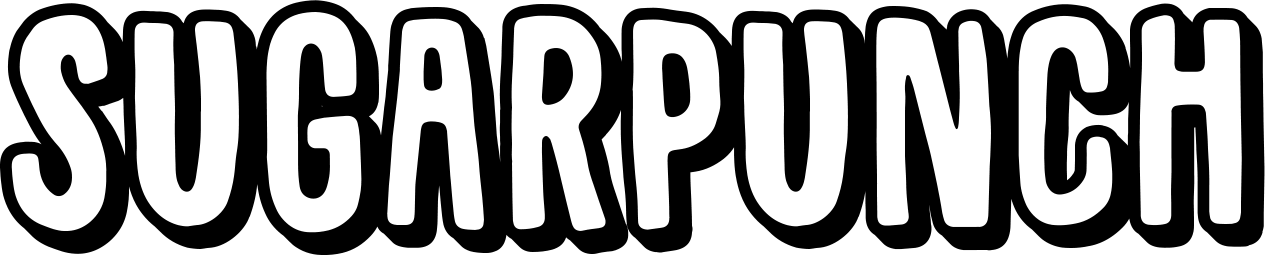
Sugarpunch Font
Sugarpunch is designed to make a super eye-catching text layout. The strokes in this cartoon font make the letters even more striking. You can use it for friendly situations and share a joyful mood.
Go with it right now and experience flawless work. It’s usable for many types of projects, such as; menus, flyers, books, and so on. Note that the lowercase letters are not included.
Sugarpunch is kinda like a strawberry and chocolate smoothie: tasty, creamy and delicious!
With its round edges, you get a smooth look. Perfect for anything that needs a handmade look, and legible even at small sizes.